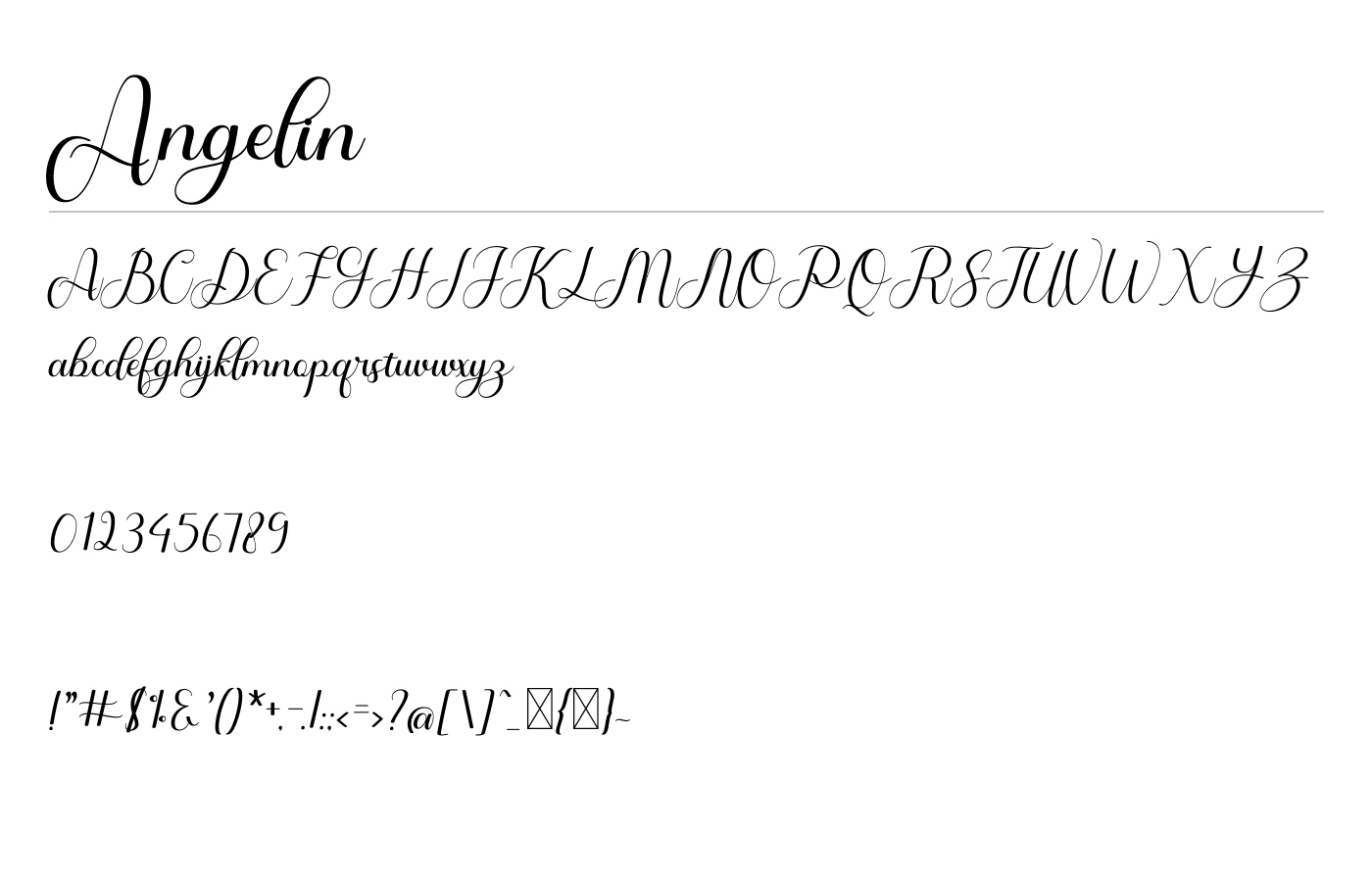
Angelin is an elegant script font featuring delicate, flowing strokes and high contrast between thick and thin lines. Its tall, slender letterforms, paired with graceful swashes and single-story lowercase letters, evoke a refined, romantic feel ideal for luxury branding, invitations, and stylish editorial designs. This font works best in headlines and decorative text where its sophisticated charm can truly shine.
Angelin Font